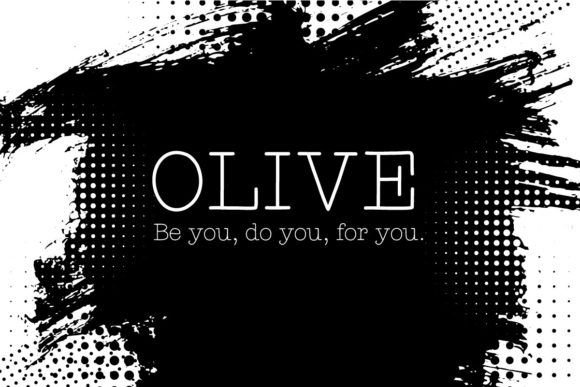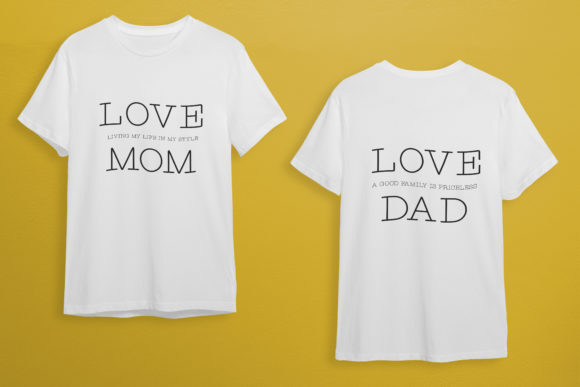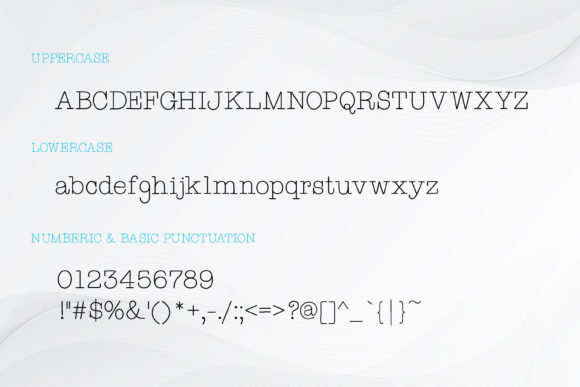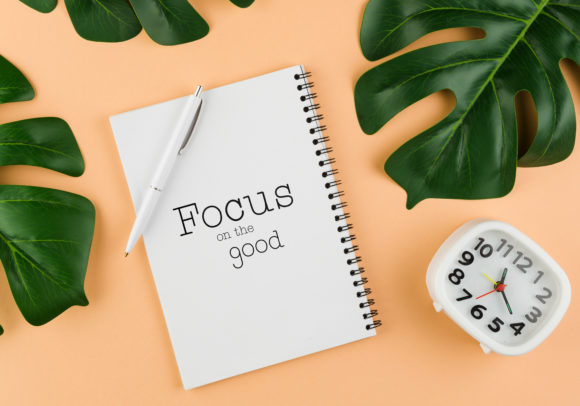
The Piper Font
THE PIPER FONT SPECIMEN
The Piper is a thin lettered and vintage styled slab serif font. It can easily be matched to an incredibly large set of projects, so add it to your creative ideas and notice how it makes them stand out!